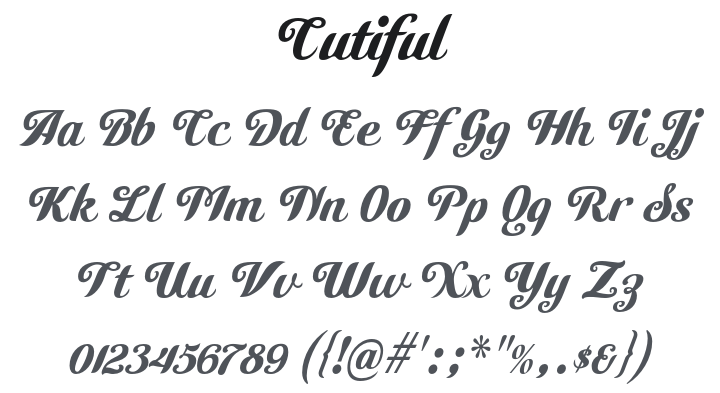
Cutiful Font
About Cutiful
Cutiful is a warm, friendly brush script with smooth flowing curves and a button-cute charm — letters feel hand-lettered with care, carrying a groovy 1960s–70s casualness balanced with genuine elegance. Its disconnected, construction-style strokes give it personality without losing legibility. Perfect for fashion labels, party invites, greeting cards, t-shirt graphics, and any design needing cheerful, feel-good handwritten energy.